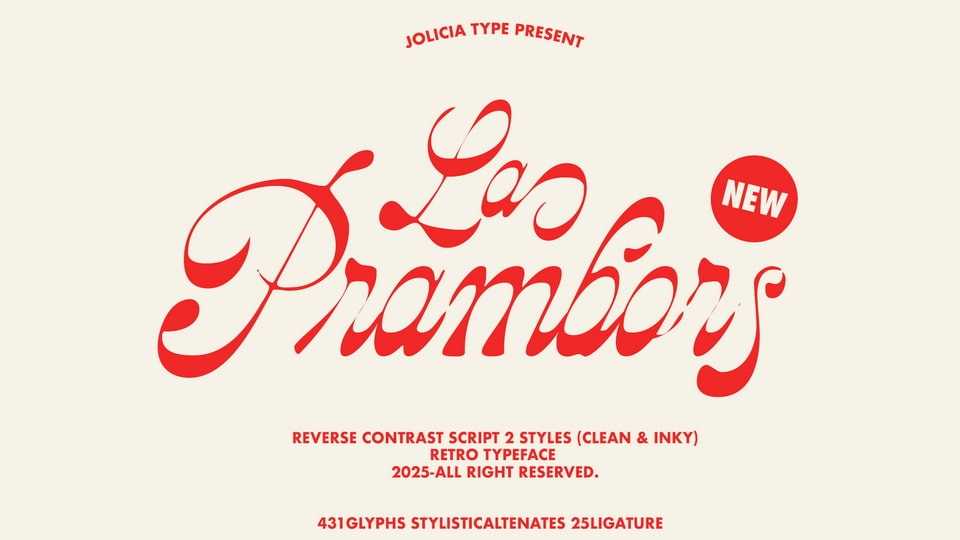
Download La Prambors font, a bold reverse contrast script typeface inspired by retro vibes and vintage charm. Its unique character blends playful curves with unexpected stroke weigh.